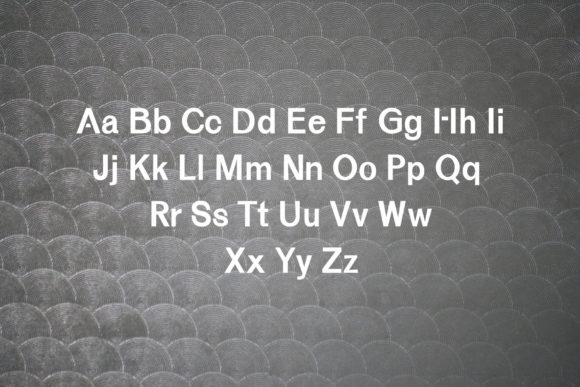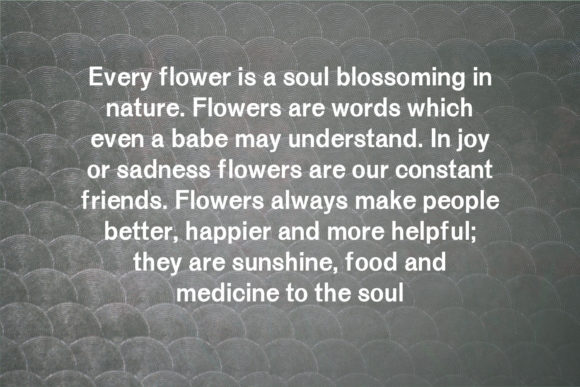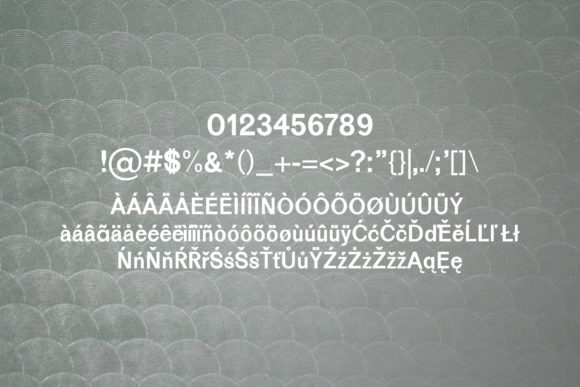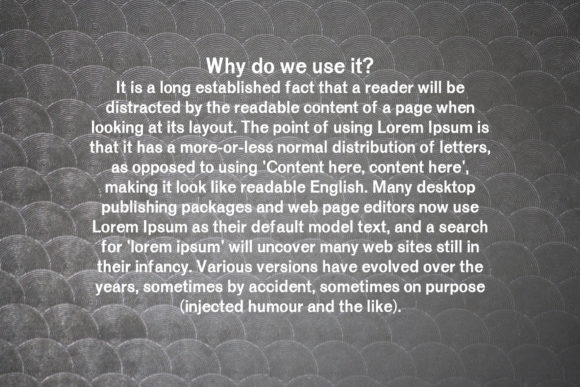
Introducing the Beacher Family Font: A Modern Sans Serif Marvel
In the world of typography, few fonts manage to strike a balance between solemnity and playfulness. However, the Beacher Family Font is an exception, seamlessly blending a modern sans serif style with a unique character that is both charming and captivating. This font is perfect for designers and crafters looking to add a touch of sophistication and whimsy to their projects.
The Beacher Family Font: A Harmonious Union of Style and Versatility
The Beacher Family Font boasts a modern sans serif design that exudes a sense of freshness and elegance. Its clean lines, precise curves, and balanced proportions make it an excellent choice for a wide range of applications, from branding and advertising to digital media and crafting projects. Whether you’re working on a logo, brochure, website, or social media graphics, this font is sure to make a lasting impression.
What Sets Beacher Apart?
So, what makes the Beacher Family Font stand out from the crowd? Here are a few key features that set it apart:
- Unique Character: Beacher’s distinct personality shines through in its carefully crafted letterforms, which convey a sense of sophistication and approachability.
- Modern Sans Serif Style: The font’s sleek, contemporary design ensures it stays up-to-date with the latest typography trends.
- Playful and Futuristic: Beacher’s subtle playfulness and futuristic undertones add a touch of excitement and energy to any project.
- Versatility: With its wide range of applications, Beacher is an excellent addition to any designer’s or crafter’s toolkit.
Whether you’re a professional designer or a skilled crafter, the Beacher Family Font is an excellent choice for your next project. Here are some ways you can use this versatile font:
- Branding and Logo Design: Create a lasting impression with a custom logo or brand identity that showcases Beacher’s unique character.
- Digital Media: Use Beacher for social media graphics, blog posts, and website content to add a touch of modernity and sophistication.
- Crafting Projects: Add a professional touch to your crafting projects, such as handmade cards, invitations, or scrapbooking pages.
- Advertising and Marketing: Make your advertising and marketing materials stand out with Beacher’s clean, modern design.
Tips for Using the Beacher Family Font
To get the most out of the Beacher Family Font, here are some tips to keep in mind:
- Experiment with Font Sizes: Beacher looks great in a variety of font sizes, from large headings to smaller body text.
- Pair with Other Fonts: Try pairing Beacher with other fonts to create a unique and visually appealing typography combination.
- Use in Combination with Images: Beacher works beautifully with images, so don’t be afraid to combine it with high-quality visuals.
In conclusion, the Beacher Family Font is a charming and modern sans serif font that is sure to capture your heart. With its unique character, versatile design, and wide range of applications, it’s an excellent addition to any designer’s or crafter’s toolkit. So why wait? Fall in love with Beacher’s captivating style and use it to elevate your most exquisite projects!